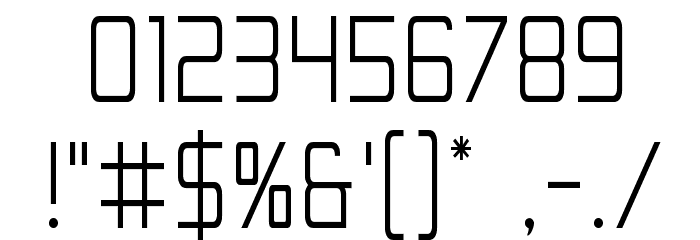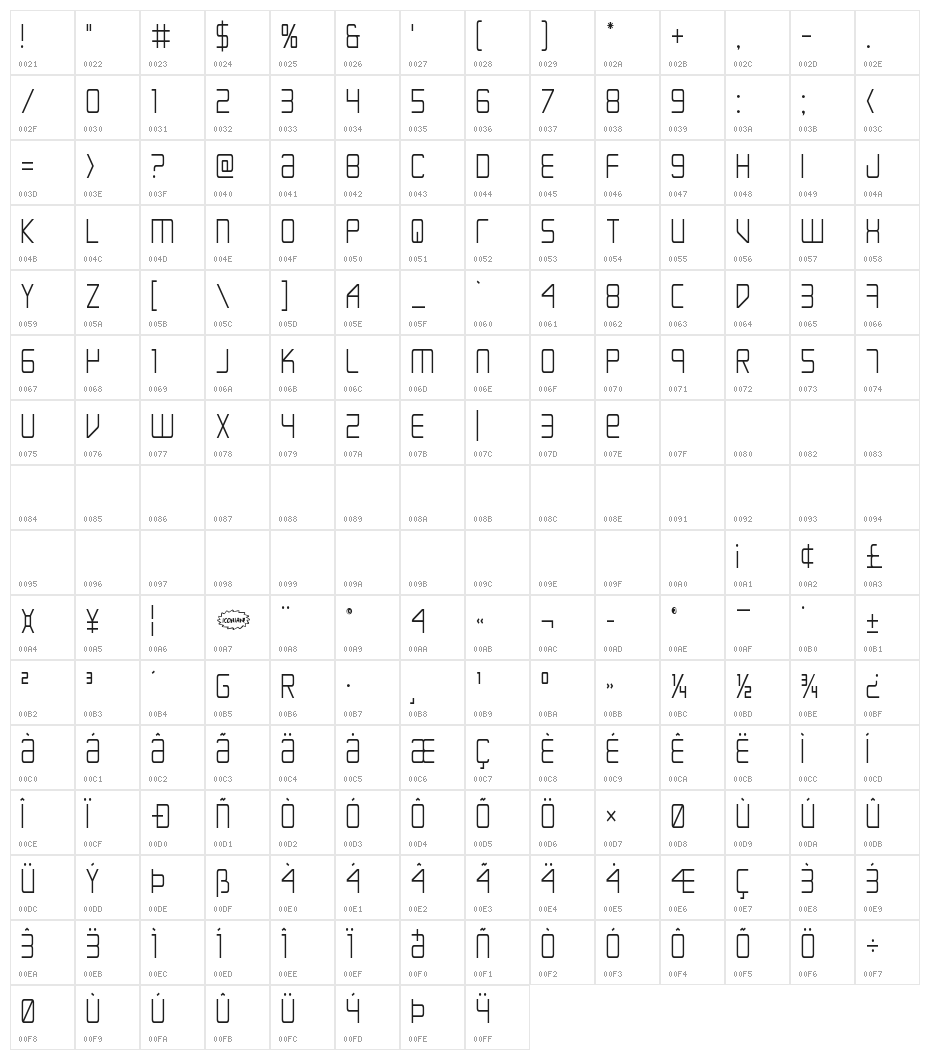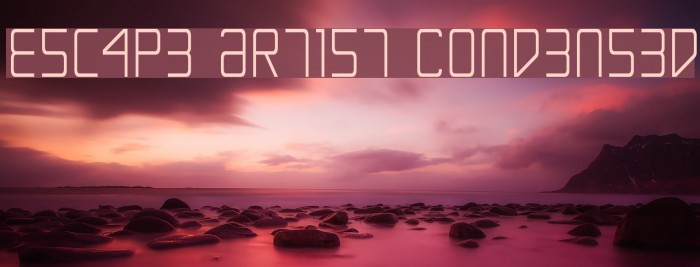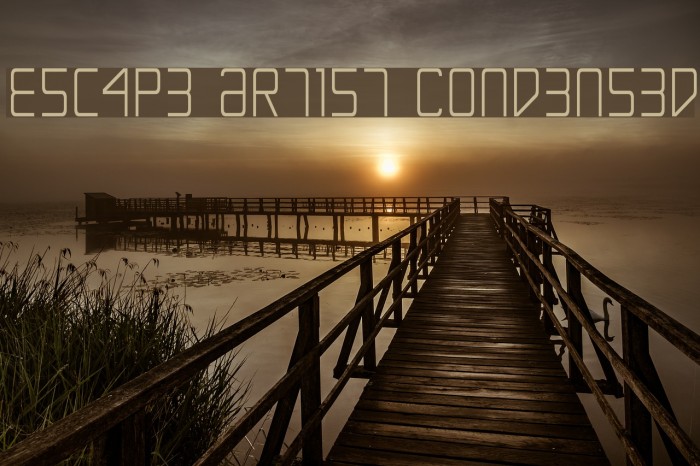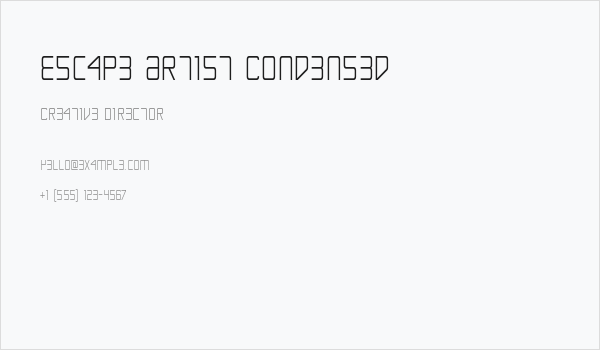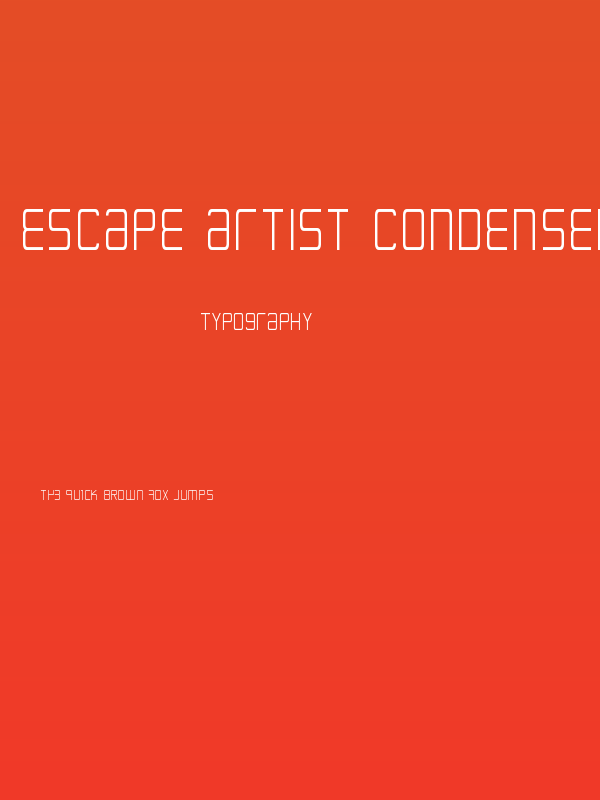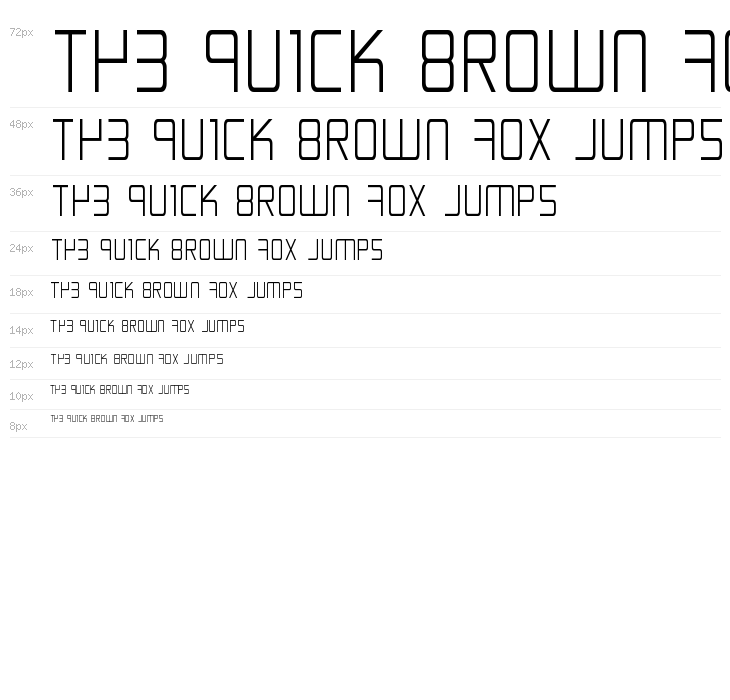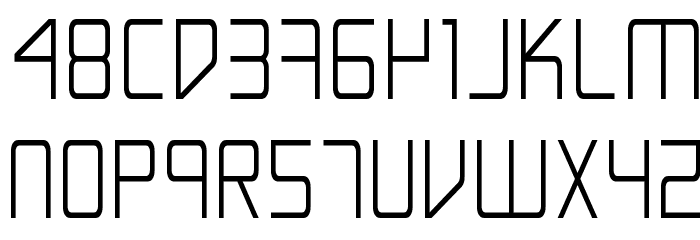
Escape Artist Condensed Font
Escape Artist Condensed Description
This font features a geometric and modern design with a condensed structure, characterized by clean, straight lines and sharp angles. The uppercase and lowercase letters maintain a consistent height, giving a uniform appearance. The numerals are distinct and align well with the overall style, ensuring readability. Special characters are crafted with the same precision, making them suitable for various applications. The font's minimalistic approach and lack of serifs contribute to its contemporary feel, making it ideal for projects that require a sleek and professional look.
| Proposed Projects | Ideal for branding, advertising, posters, and digital media where a modern and sleek appearance is desired. |